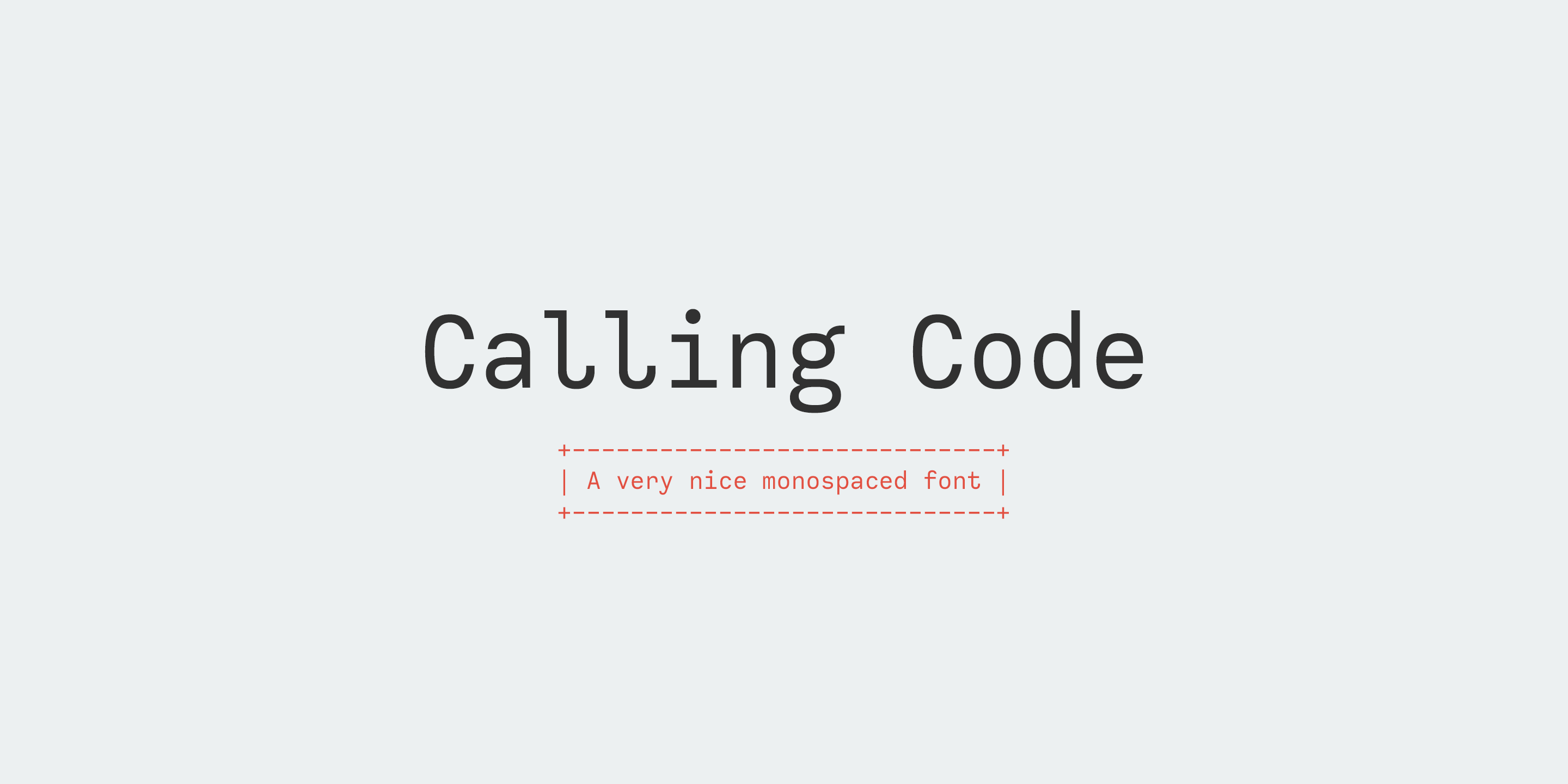
The Calling Code Font is perfect for various design applications including software development branding, programming bootcamp materials, tech startup logos, coding education platforms, developer conference graphics, programming language documentation, tech community signage, and digital innovation project designs. This technical typeface works exceptionally well for technology brands and projects requiring authentic programming character with developer appeal.
What makes Calling Code Font exciting is its technical and precise character that instantly speaks to programmers and captures the systematic logic of coding with digital authenticity. The font features structured letterforms with programming aesthetics and code-inspired qualities that evoke feelings of logic, precision, and technological innovation. Its coding styling and call-inspired appearance make it perfect for brands that want to establish tech credibility and connect with developers who appreciate authentic programming culture and systematic digital thinking.
The Calling Code Font family includes multiple weights and styles, offering designers flexibility for diverse programming applications. The family typically consists of regular, bold, monospace, and terminal variations, along with code-inspired decorative elements and programming ornaments, providing comprehensive coverage for projects that need both functionality and visual authenticity across different development contexts.
Whether you're working on software companies, coding education, or tech innovation campaigns, Calling Code Font Free Download delivers the technical quality and visual precision that modern programming designers demand. The font's code-calling design combined with its excellent readability makes it an essential tool for creating compelling visual communications that honor programming culture and bring the systematic spirit of software development to life.